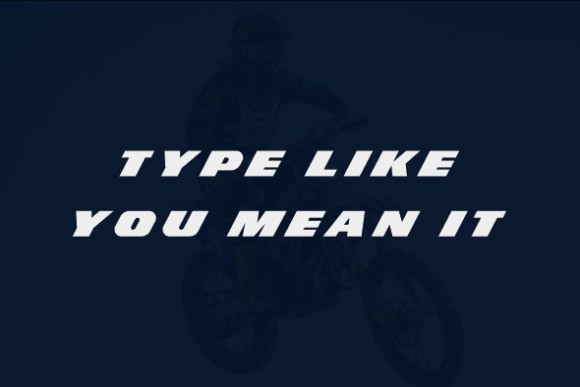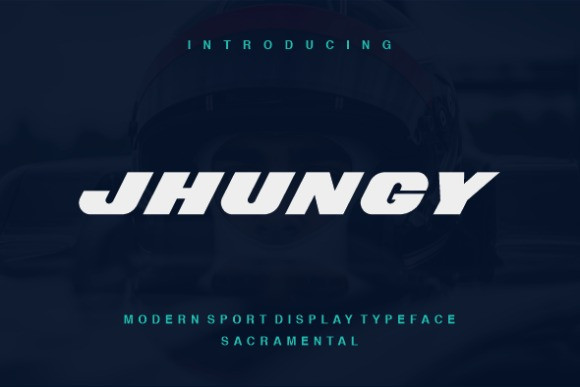
Jhungy Font
Jhungy Font is a modern sport display typeface built for speed, strength, and attention. Designed with bold geometric forms, sharp angles, and italicized motion, Jhungy is the perfect choice for projects that demand a dynamic and energetic visual presence. From racing posters and esports branding to gym gear, streetwear, or bold headlines, this typeface brings your message forward with power and clarity. Whether you’re designing a logo, jersey, or banner, JHUNGY gives your work a modern edge with sporty confidence.